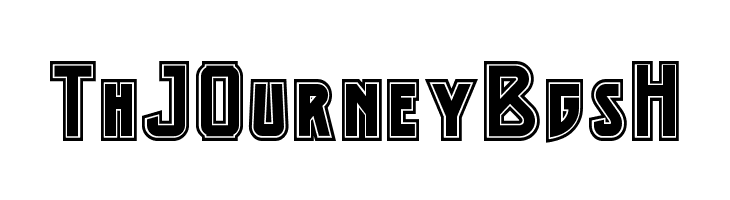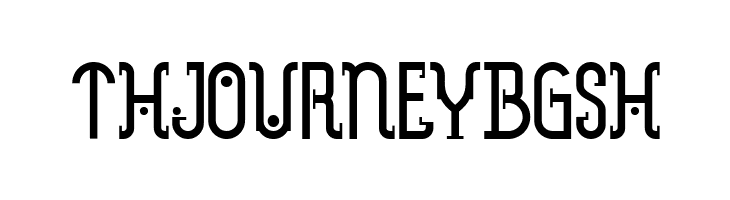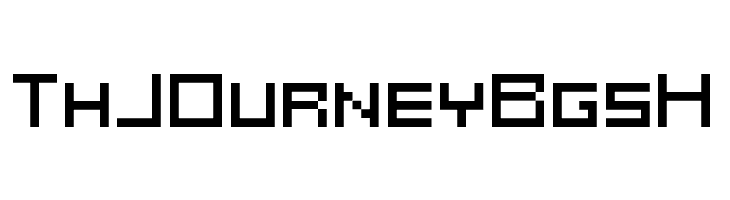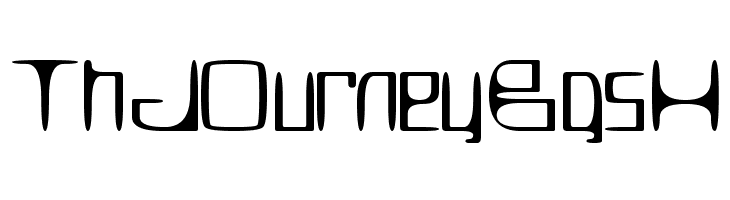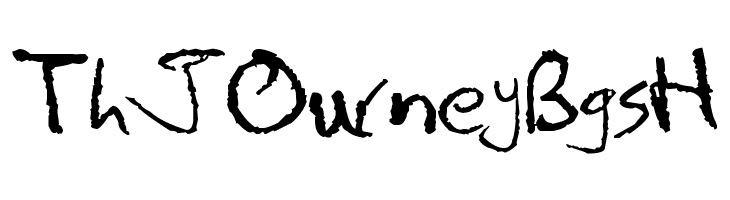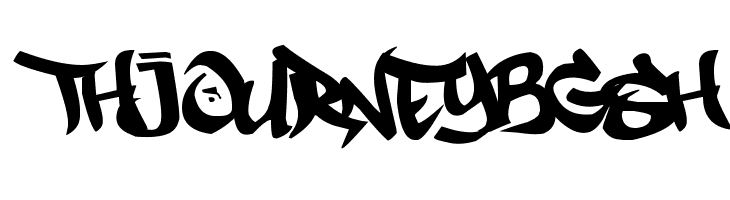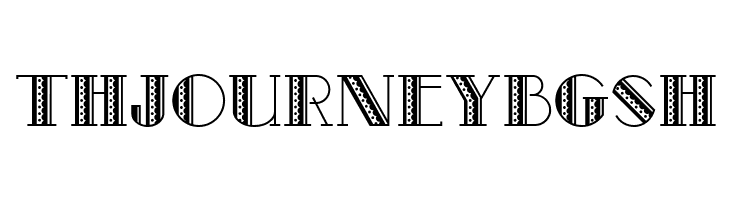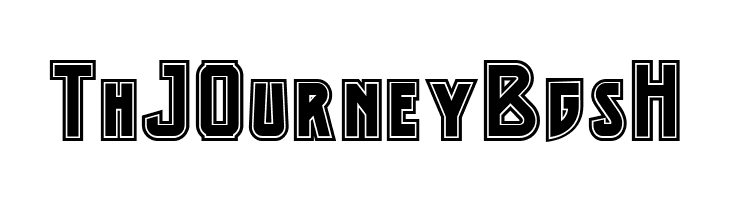
A modern, geometric font with clean lines and uniform stroke width.
A light, italicized font with a modern and clean design.
A bold, geometric font with a retro, angular design.
A bold, distressed font with a grungy, textured style.
Playful handwritten font with a casual style.
Playful, bold, hand-drawn font.
A bold, geometric font with dramatic, decorative elements.
A playful, hand-drawn outline font with a whimsical and artistic style.
A bold, energetic, hand-drawn style with dynamic, irregular strokes.
A bold, blocky font with a strong geometric structure and minimal contrast.
A whimsical, curly font with bold, artistic characters.
A bold, decorative font with geometric elements and high contrast strokes.
A bold, hand-drawn font with a playful and energetic style.
A distressed, grungy font with a chaotic and edgy aesthetic.
A playful, casual handwritten font with bold strokes and a whimsical touch.
A bold, geometric font with a modern, industrial aesthetic.
A geometric, block-like outline font with a modern digital feel.
A bold, high-contrast font with gothic influences and decorative serifs.
A distressed, typewriter-style font with a grunge aesthetic.
A bold, distressed typewriter-style font with a vintage, grunge aesthetic.
A playful font featuring monkey silhouettes integrated into bold, blocky characters.
A bold, abstract font with geometric shapes and high contrast, offering a modern and artistic look.